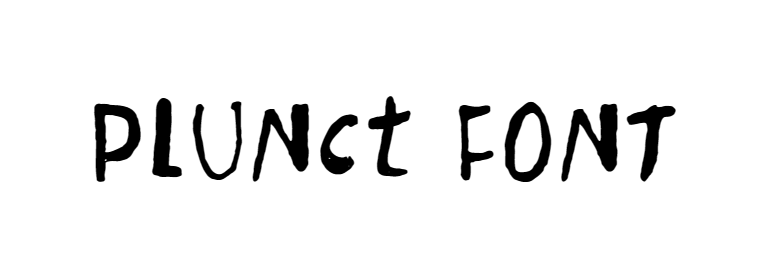
Erica Jung and Ricardo Marcin of Brazilian foundry PintassilgoPrints created Plunct, a wildly eccentric display typeface released in 2017. Emulating the scratchy aesthetic of a lanky ink pen, Jung and Marcin combined erratic geometry with high-energy letterforms to give designers a raw, handcrafted font with immediate visual impact.
Plunct
Plunct is a handwritten font designed by Ricardo Marcin & Erica Jung and published by PintassilgoPrints (2017).
- Designer: Ricardo Marcin & Erica Jung
- Publisher: PintassilgoPrints
- Font styles: 2 (Plact and Plunct)
- Glyphs: 386 in the Regular style
- OpenType features: Ligatures (including optional ones), contextual alternates and one stylistic set
- Extra characters: 38 copy-and-paste alternates (Private Use Area)